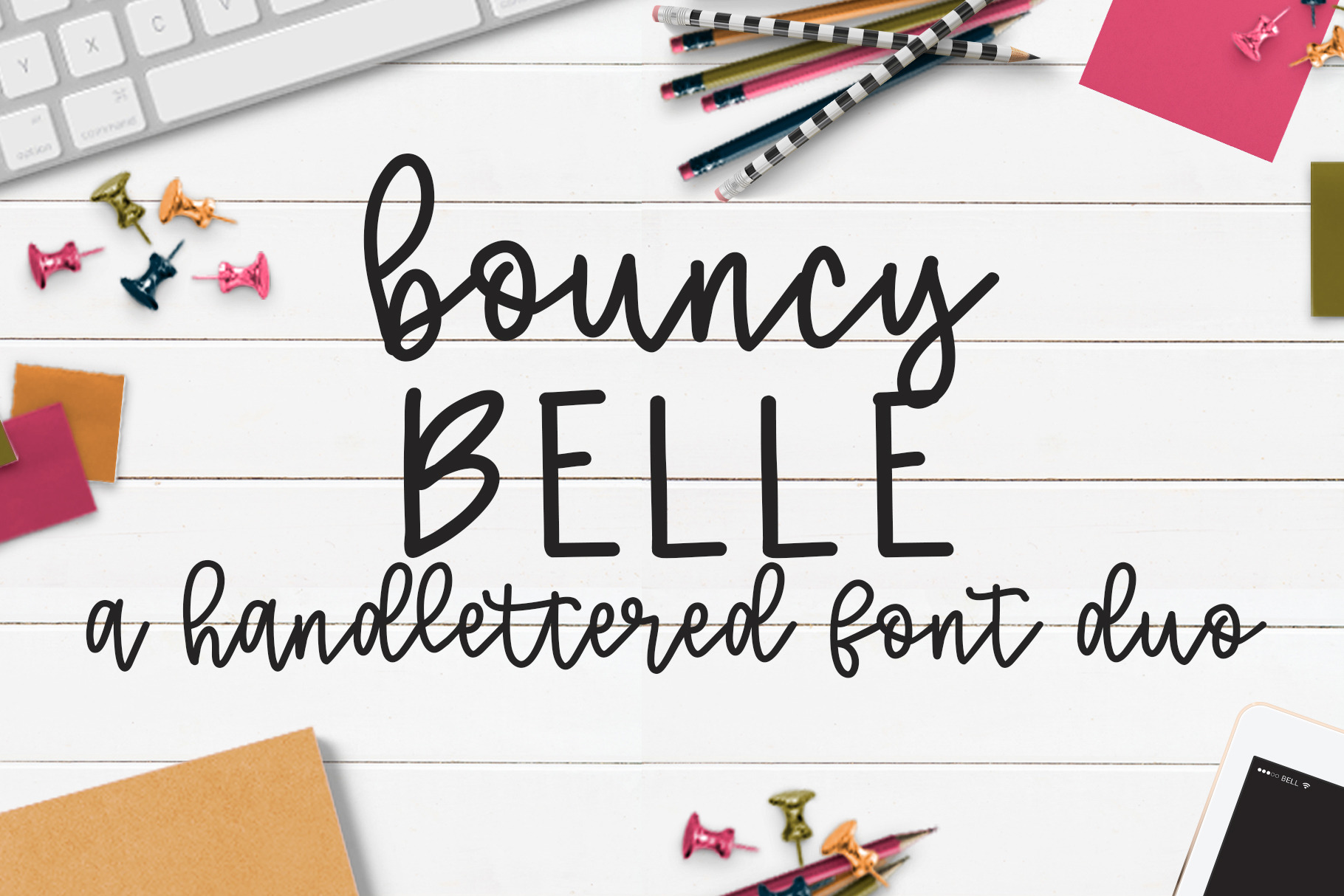
Bouncy Belle Hand lettered Font
Say hello to bouncy BELLE!
This is a playful font with lots of features!
- playful lowercase script
- all print uppercase
- a full set of alternates for the lowercase characters